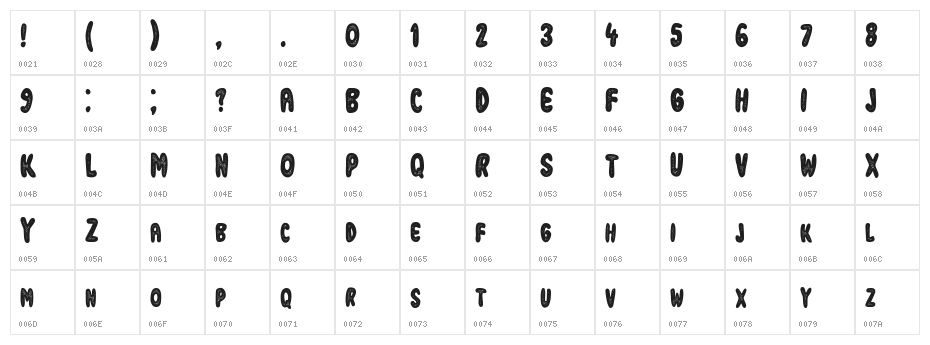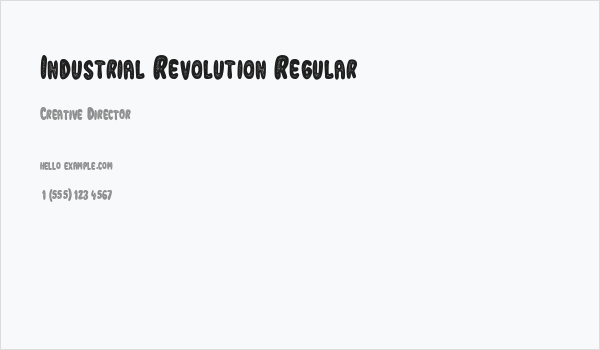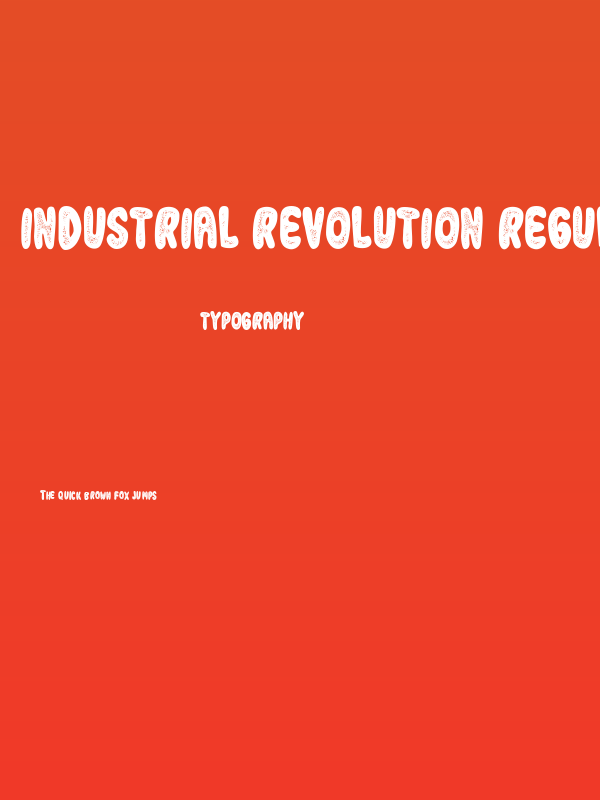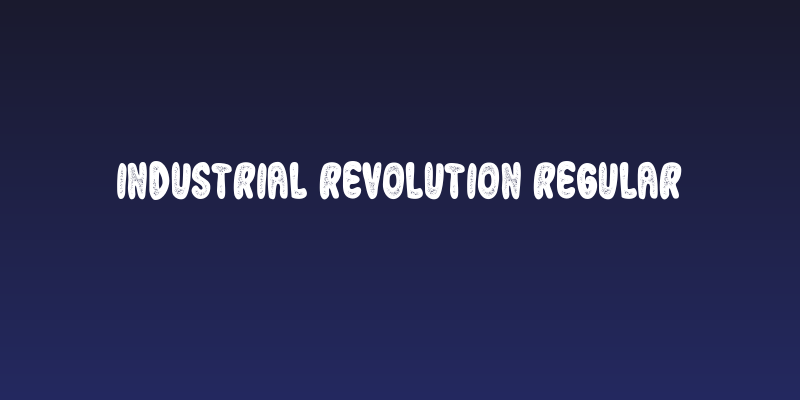
Industrial Revolution Regular Font
Industrial Revolution Regular Description
This font features a bold and playful style with a distressed texture that gives it a vintage and industrial feel. The characters are rounded and thick, with a consistent weight throughout. The texture within each letter adds a unique, worn appearance, reminiscent of old signage or print. The font maintains a uniform width, making it easy to read while still offering a decorative touch. Its boldness and distinctive style make it suitable for eye-catching designs.
| Proposed Projects | Ideal for posters, branding, packaging, and any project needing a vintage or industrial aesthetic. |